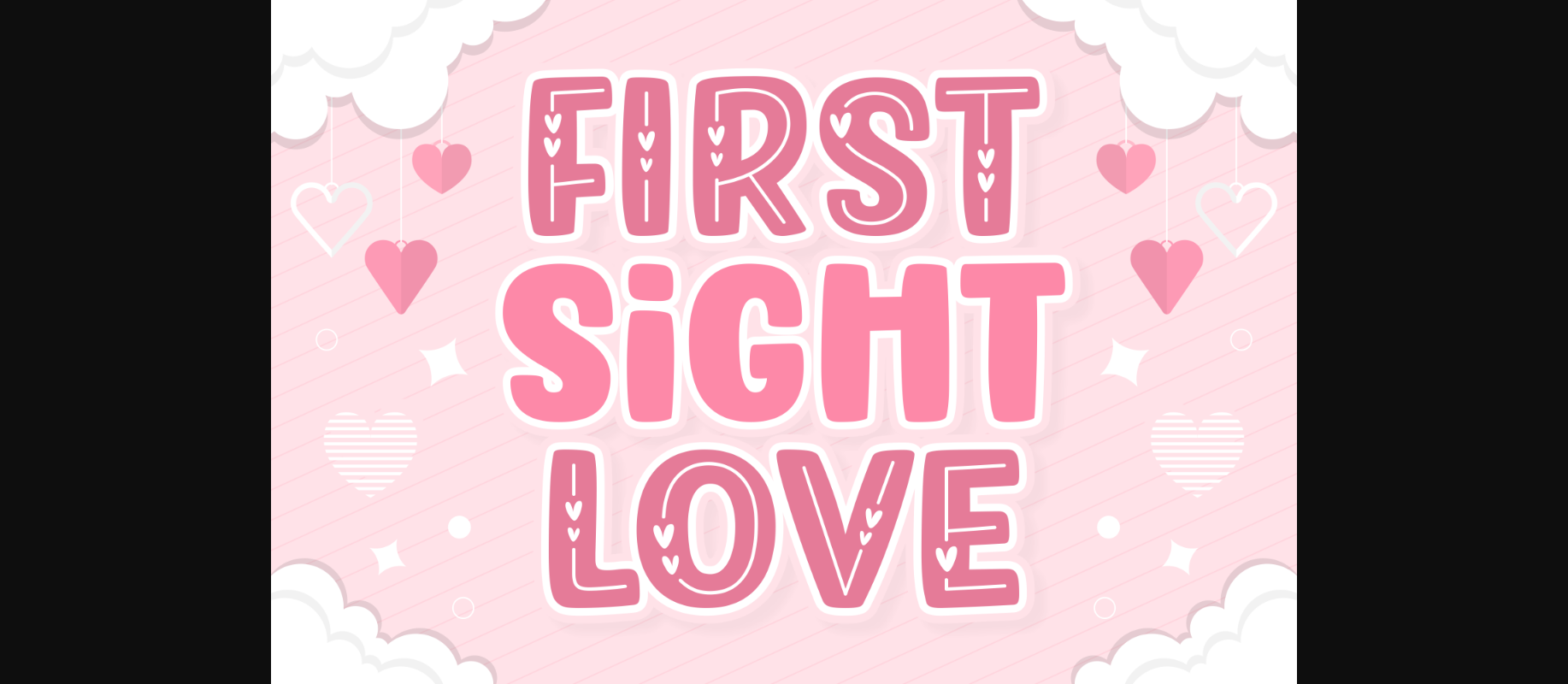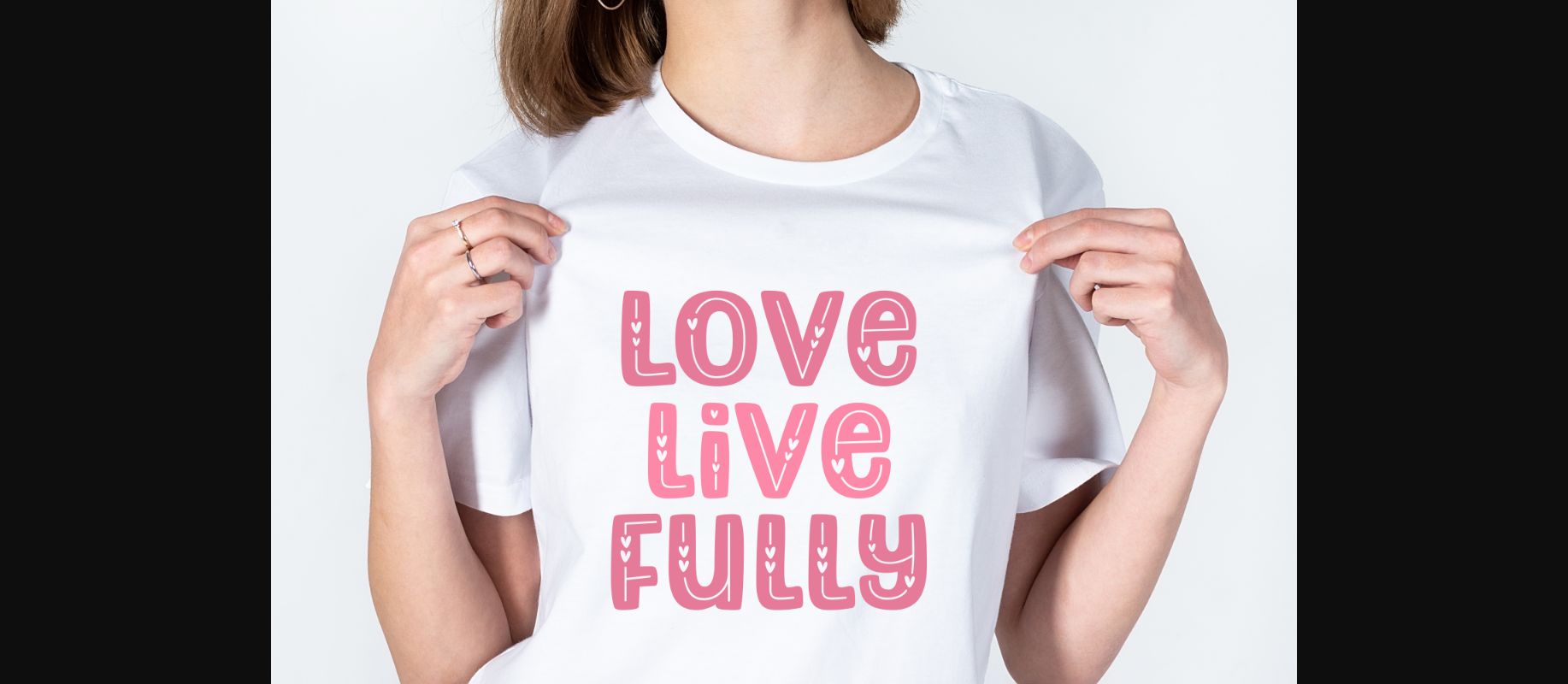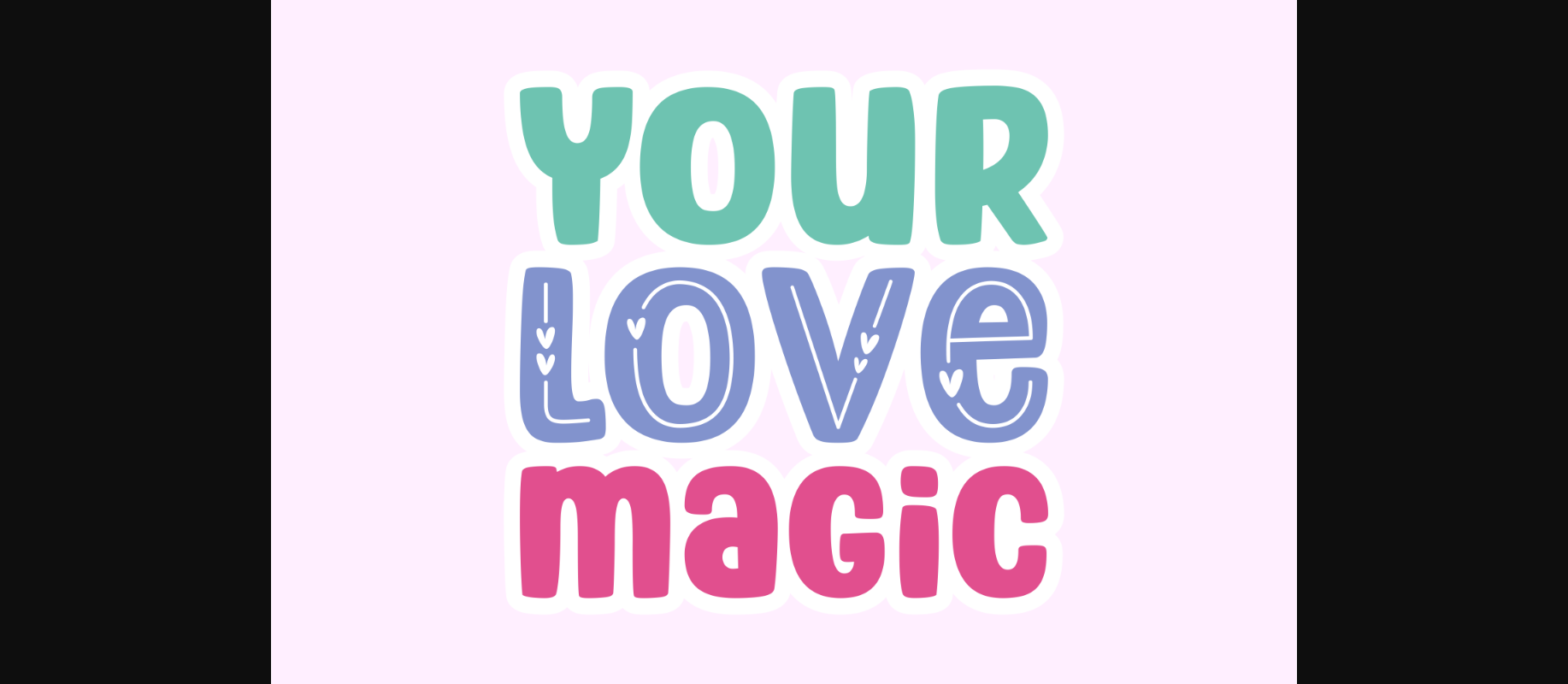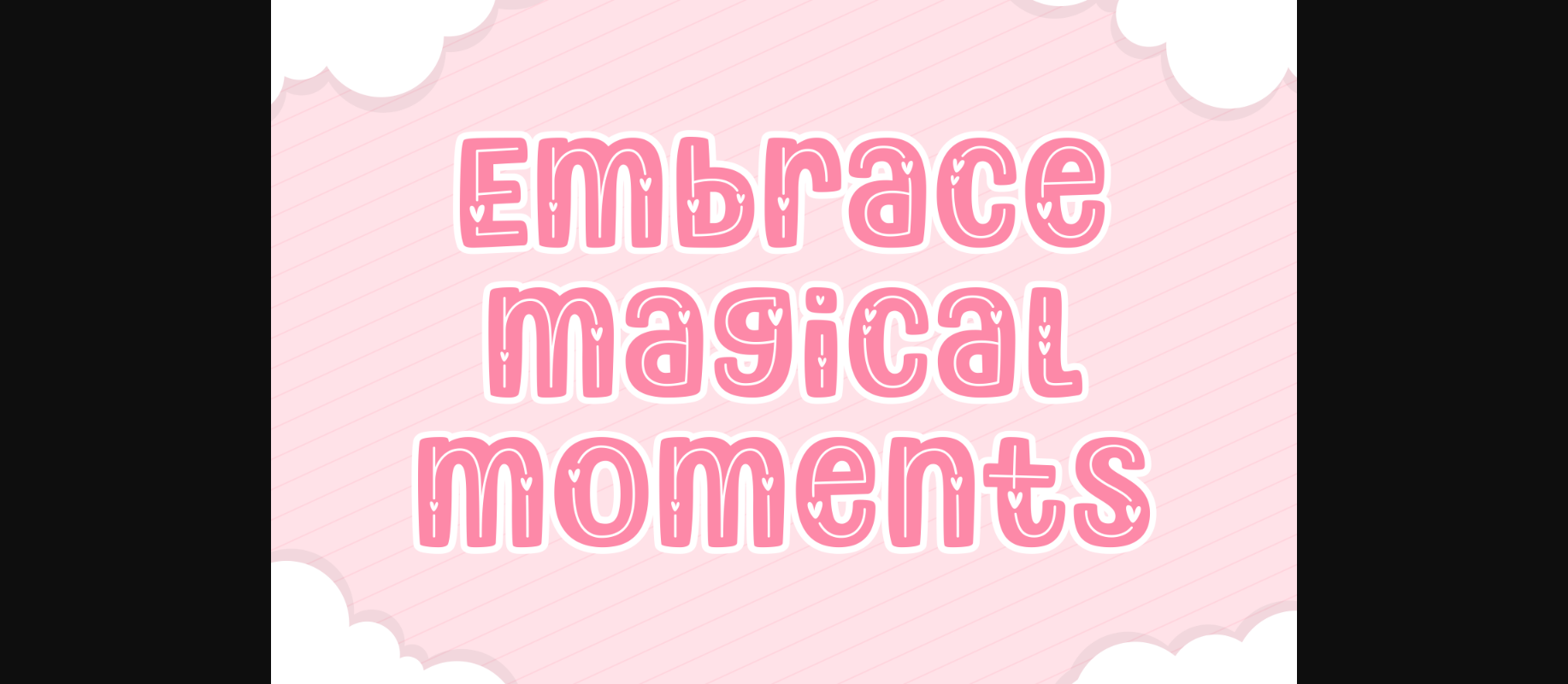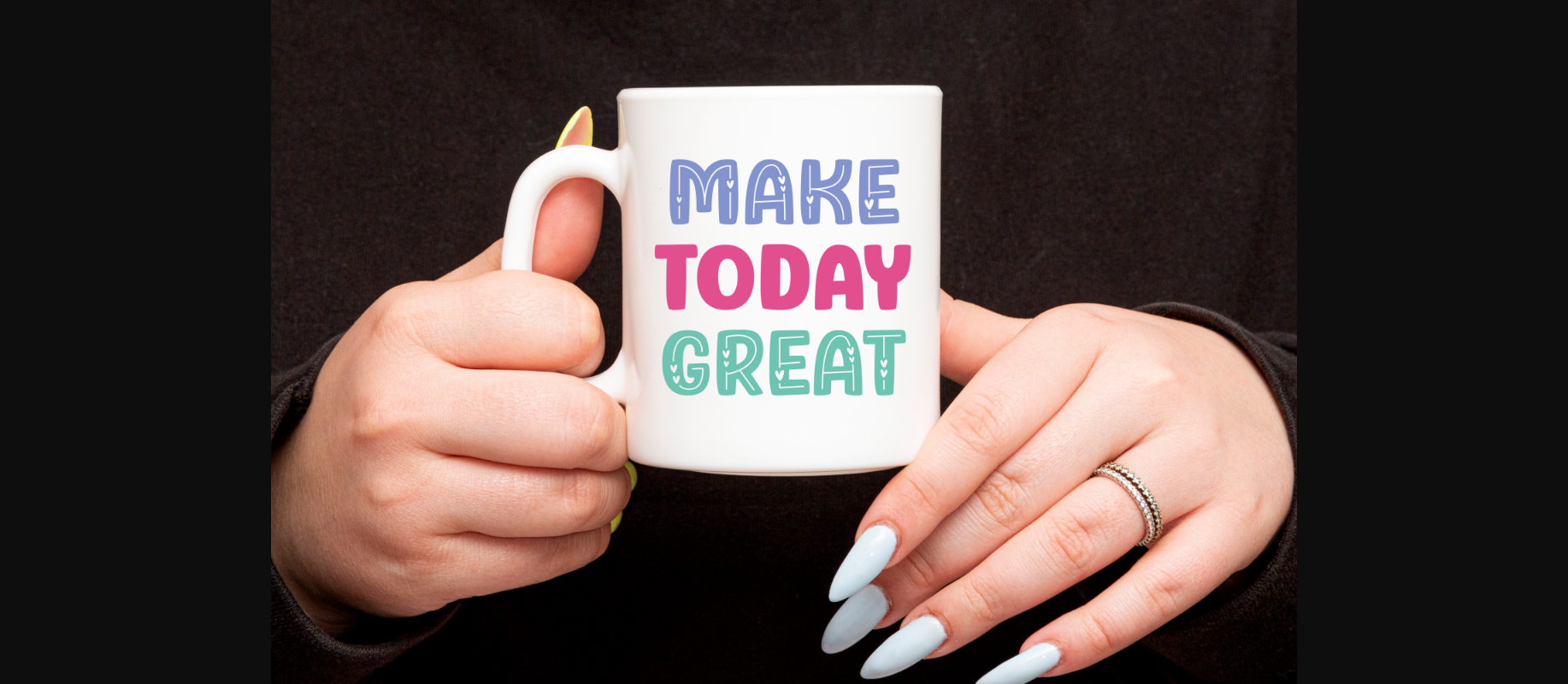
About First Sight Love Font
First Sight Love is a childish, easy-to-read decorative font that conveys impeccable friendliness. Whether you’re using it for crafts, digital design, presentations, or making greeting cards, this font has the potential to become your favorite go-to font, no matter the occasion!